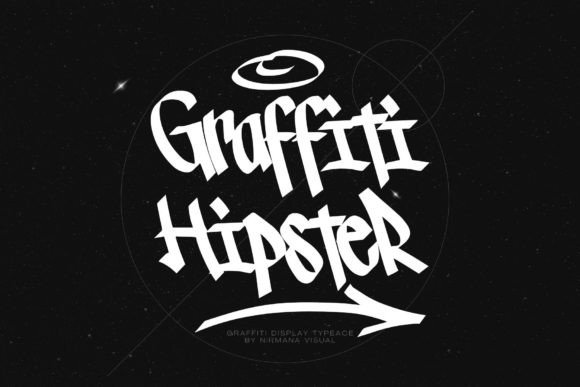
Introducing Graffiti Hipster Font, the ultimate graffiti display font designed by the talented Sigit Dwipa. If you're looking to add an edgy and bold touch to your urban design projects, then this font is your perfect companion. With its captivating energy and raw attitude, Graffiti Hipster brings the vibrant spirit of the streets right to your fingertips.
Crafted with meticulous attention to detail, this font exudes an authentic and handcrafted feel that will make your designs stand out from the crowd. Its unique style captures the essence of graffiti art, making it a must-have for logos, posters, album covers, and more.
But what sets Graffiti Hipster apart from the rest? It's the extensive range of glyphs and swashes that make this font truly exceptional. Thanks to its PUA encoding, accessing all the stunning variations and decorative elements is effortless. Let your creativity flow and explore the endless possibilities this font offers.
When it comes to marketing your brand or products, first impressions matter. Graffiti Hipster Font will undoubtedly leave a lasting impact on your audience, evoking emotions and captivating attention. Its bold and eye-catching nature will make any message unforgettable, ensuring your designs leave a memorable impression.
Imagine the excitement and energy that your craft signs could exude with this font. Whether you want to promote a sale, advertise a special event, or create a unique storefront display, Graffiti Hipster Font will capture the essence of your brand and attract customers like a magnet.
Don't settle for ordinary fonts that fail to capture the true essence of your vision. Graffiti Hipster Font is here to elevate your designs and bring them to life with its urban flair and unmistakable style. Let your creativity flow freely and watch as this font transforms your projects into works of art.